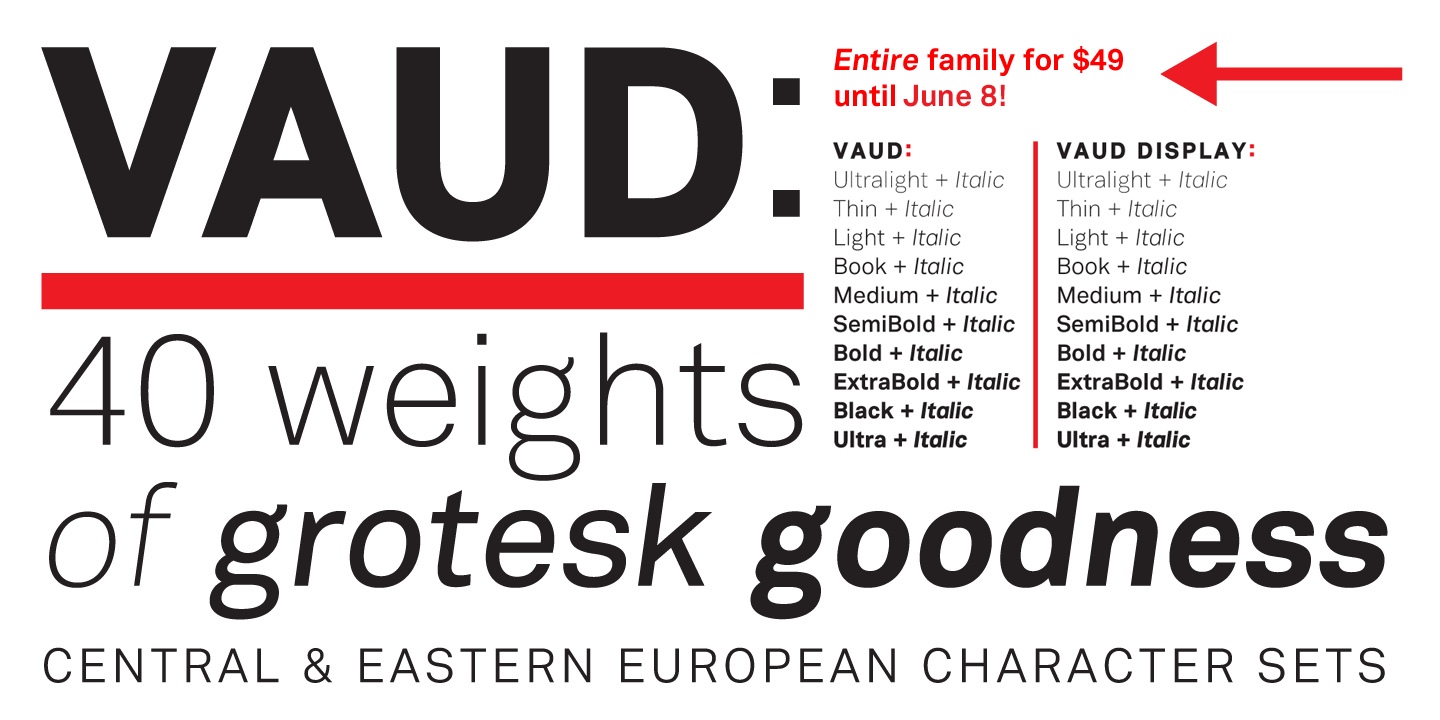
Vaud and Vaud Display Font
Vaud and Vaud Display Font is perfect for Swiss heritage branding, Alpine tourism campaigns, luxury watch marketing, premium Swiss product packaging, European cultural institutions, sophisticated hospitality materials, upscale mountain resort communications, and distinguished Swiss lifestyle designs.
What makes Vaud and Vaud Display Font exciting is its Swiss-refined character that embodies the sophisticated elegance and precision craftsmanship of Swiss design tradition through dual letterform systems that offer both text and display versatility with unmistakable Alpine sophistication. The font features clean geometric structures with subtle Swiss-inspired details that reflect the meticulous attention to quality and timeless design principles found in Switzerland's most prestigious brands and cultural institutions. Its Swiss aesthetic and Alpine authenticity make it perfect for brands that want to communicate Swiss quality, precision craftsmanship, and the sophisticated elegance that defines Switzerland's reputation for excellence while creating memorable experiences that honor Swiss design heritage and cultural sophistication.
Vaud and Vaud Display Font family includes complementary text and display variations with comprehensive weights ranging from Light to Bold, often featuring Swiss-inspired alternates and Alpine decorative elements. The dual system provides maximum flexibility for both body text and headline applications, while specialized character sets and cultural symbols enhance the fonts' Swiss aesthetic, offering designers complete typographic solutions for sophisticated Swiss branding and cultural projects.